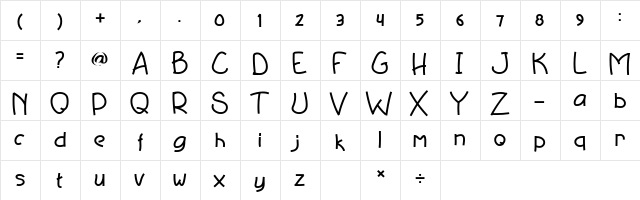
Deviato Regular
Design Context for Deviato Typeface
Deviato is a composed and adaptable typeface that performs quietly and consistently across a wide range of design contexts.